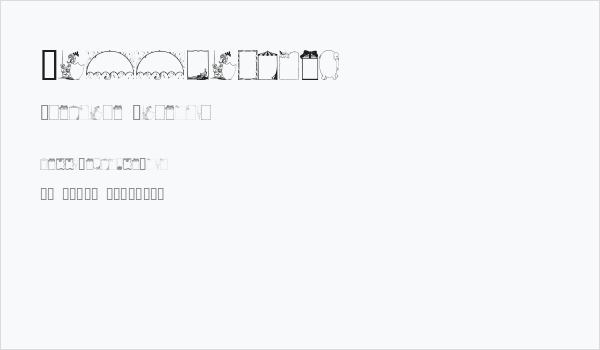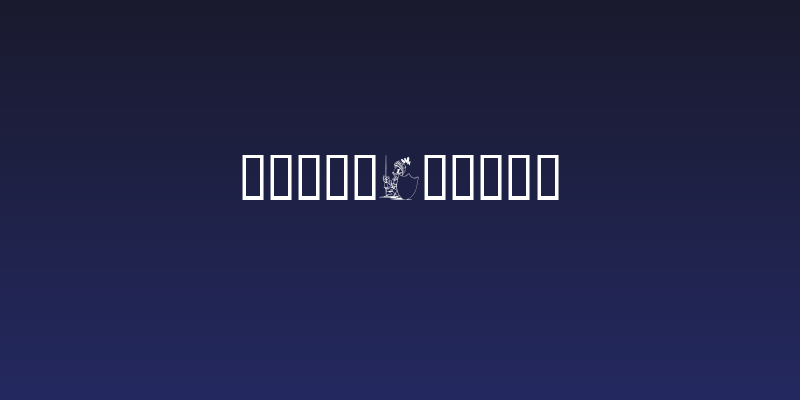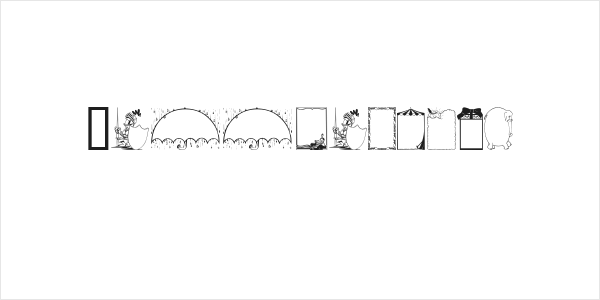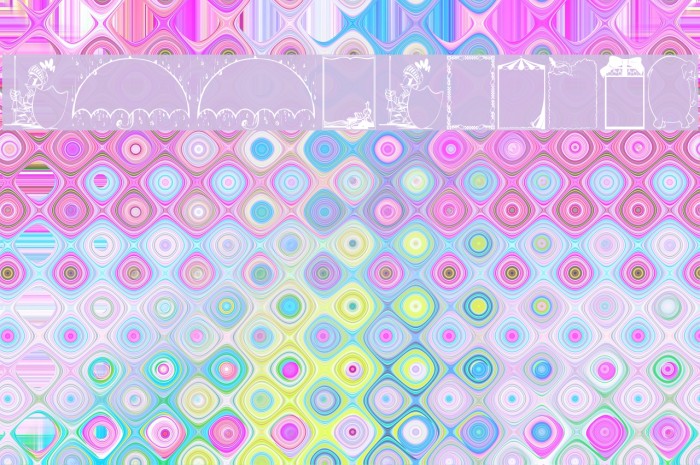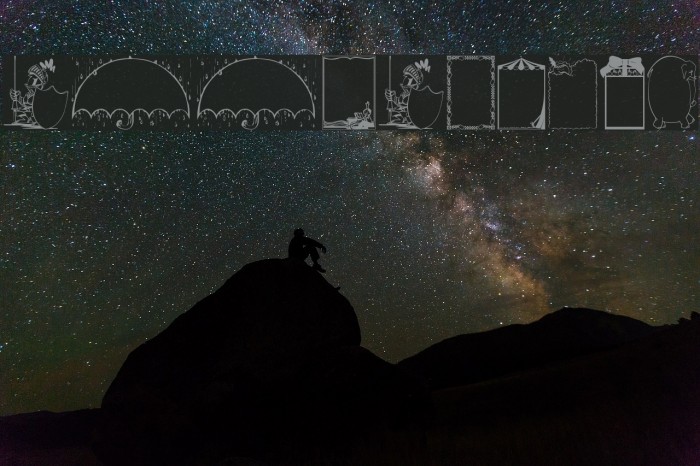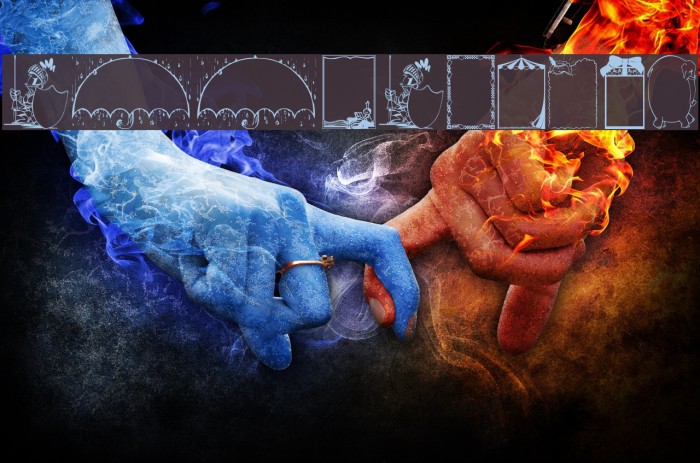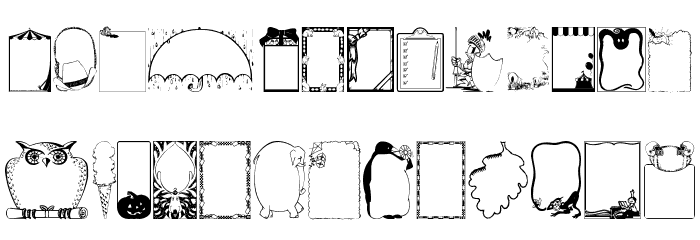
KiddyFrames Font
KiddyFrames Description
A playful and decorative collection of illustrated frames featuring whimsical characters, animals, and themed borders, designed to add a fun and engaging touch to text or images.
| Overall Style | Decorative, Playful, Childlike |
| Use Case | Frames for educational or creative projects, especially for children. |
| Proposed Projects | Children's worksheets, classroom materials, invitations, scrapbooking, educational posters. |